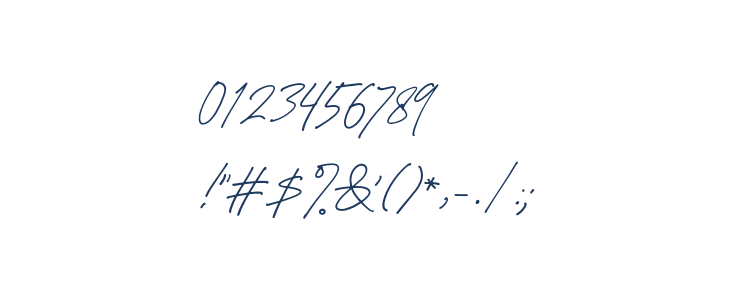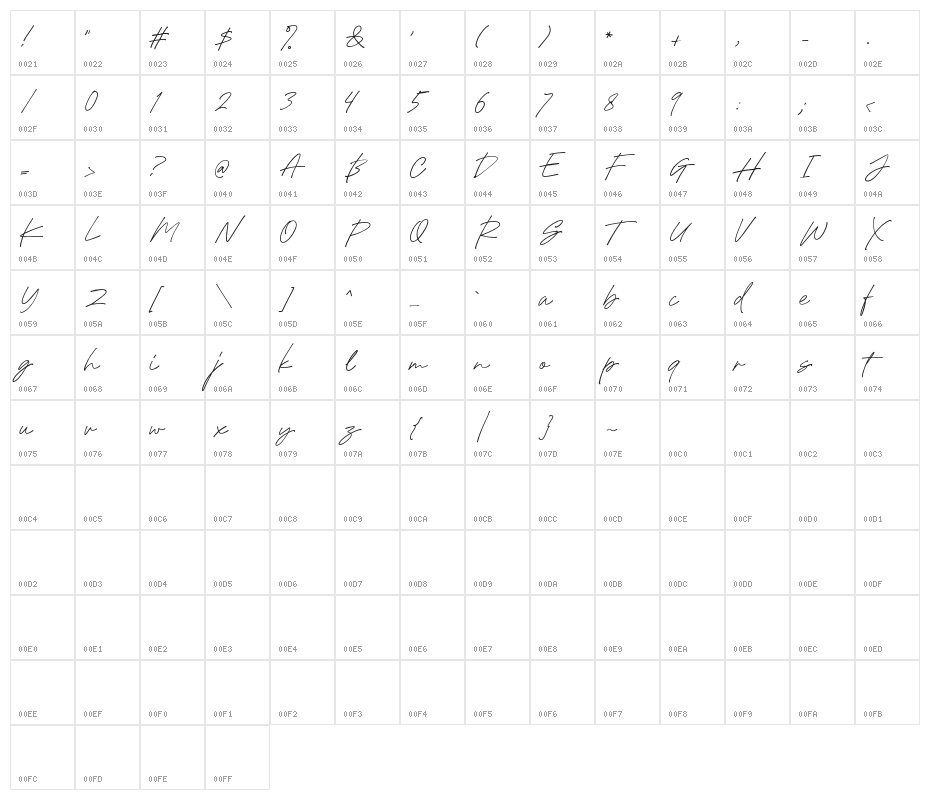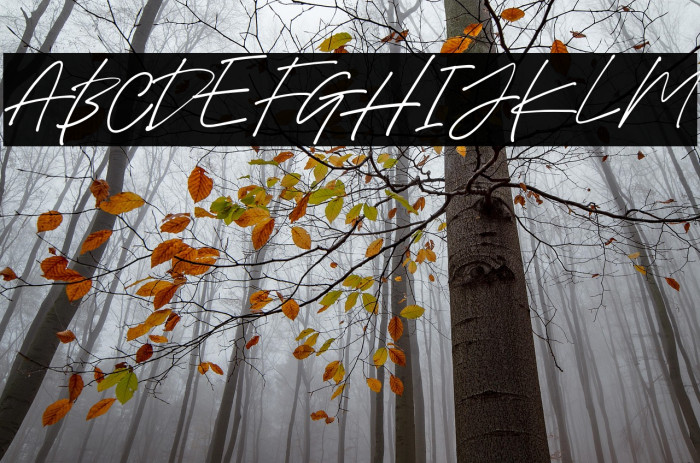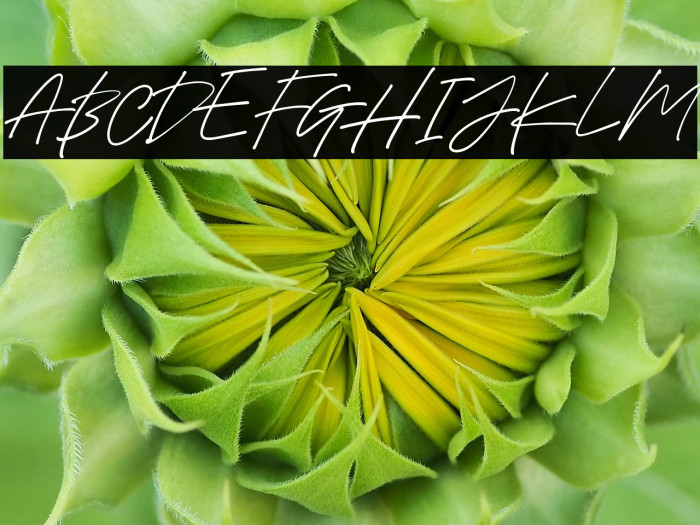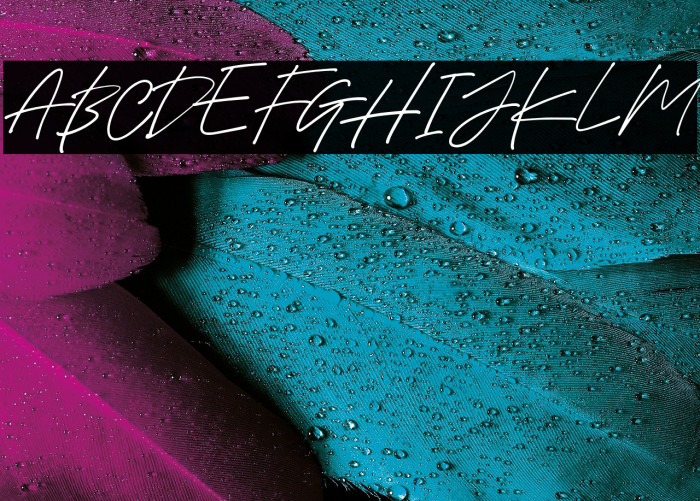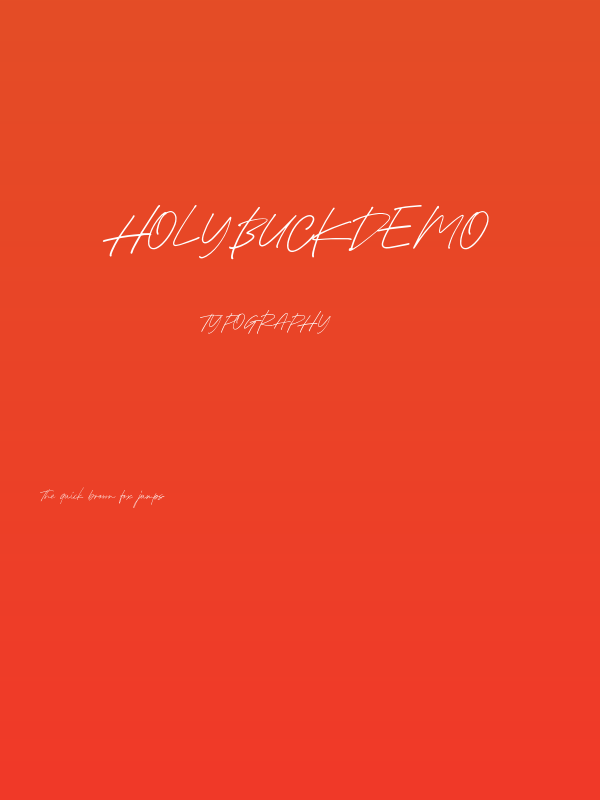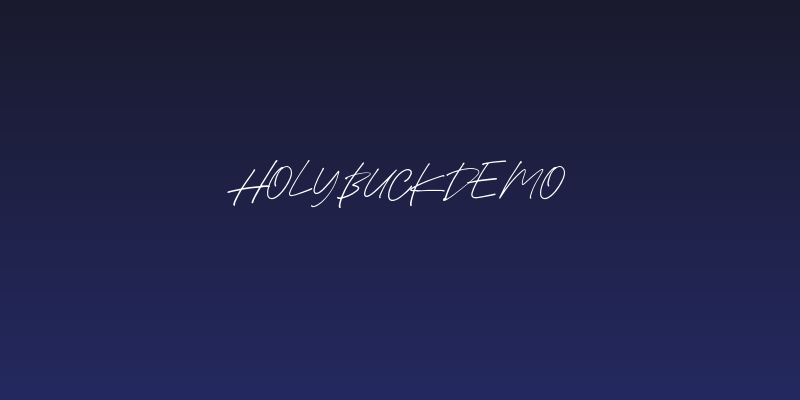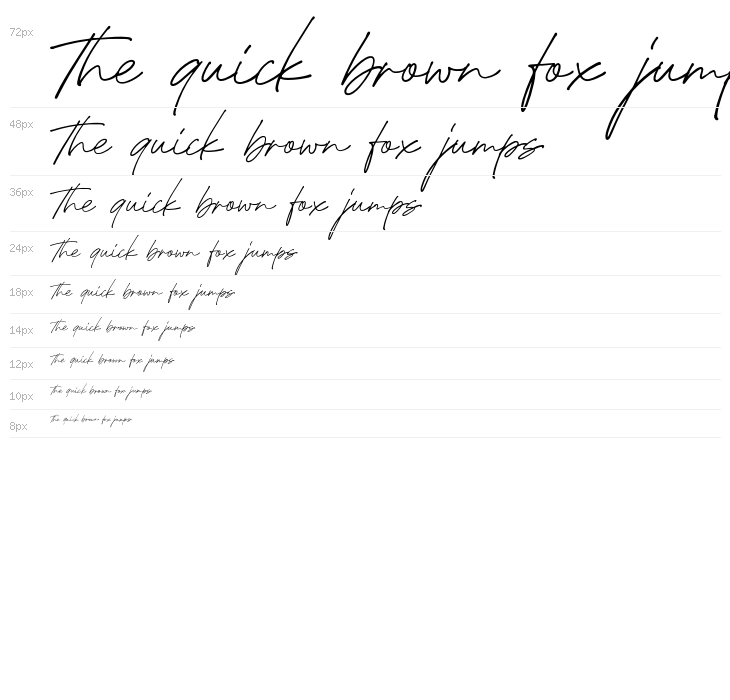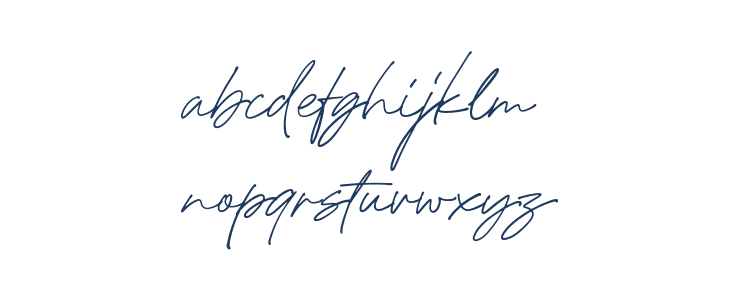
HolybuckDEMO Font
HolybuckDEMO Description
This font exudes a casual, handwritten style with a fluid and natural flow, reminiscent of personal script writing. The characters are elegantly connected, providing a seamless and continuous look. The strokes are thin and consistent, giving it a delicate and sophisticated appearance. The uppercase letters maintain a sense of uniformity while the lowercase letters exhibit a slightly more playful and relaxed demeanor. Numbers and special characters are crafted with the same attention to detail, ensuring they blend harmoniously with the alphabet. This font is perfect for adding a personal touch to any project, offering a sense of authenticity and warmth.
| Overall Style | Casual, Elegant |
| Use Case | Logos, Invitations, Personal notes |
| Proposed Projects | Ideal for personal letters, invitations, branding, and social media graphics. |